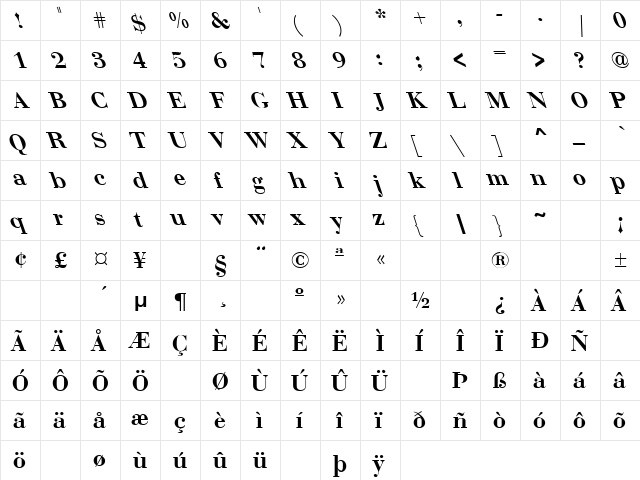
Any Color 5 Regular
Design Context for Any Color 5 Typeface
Any Color 5 is a composed and adaptable typeface that performs quietly and consistently across a wide range of design contexts.